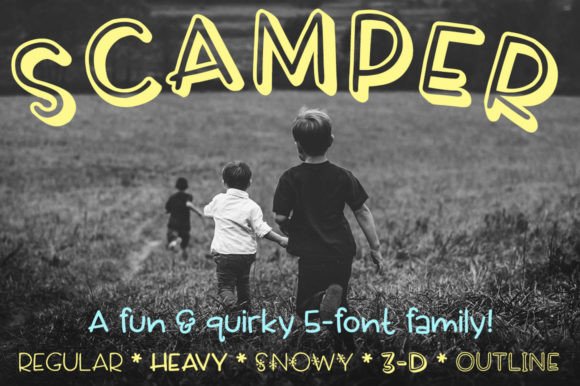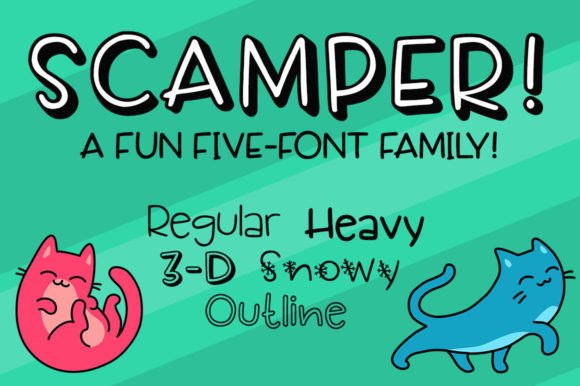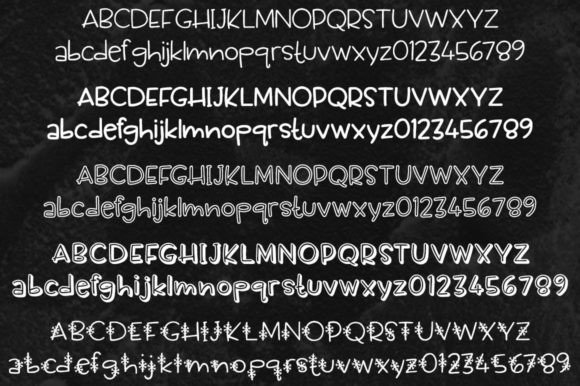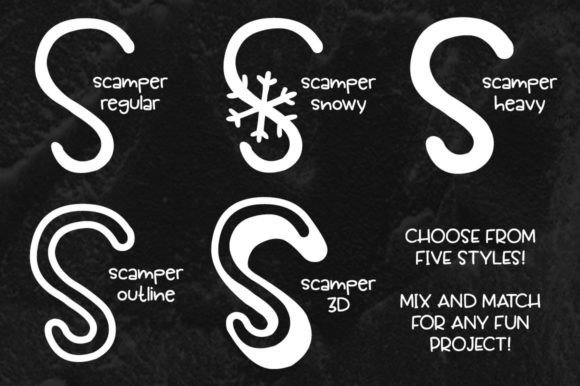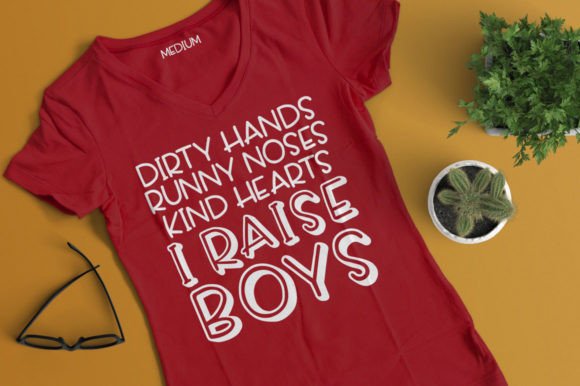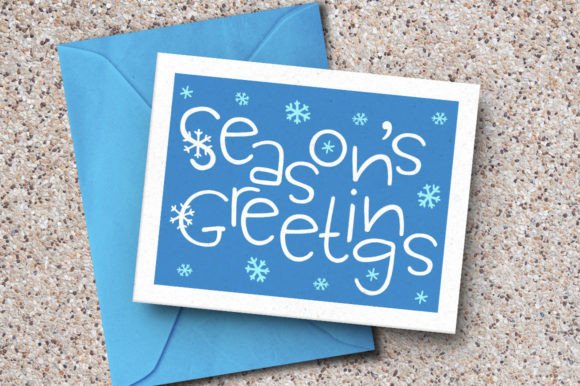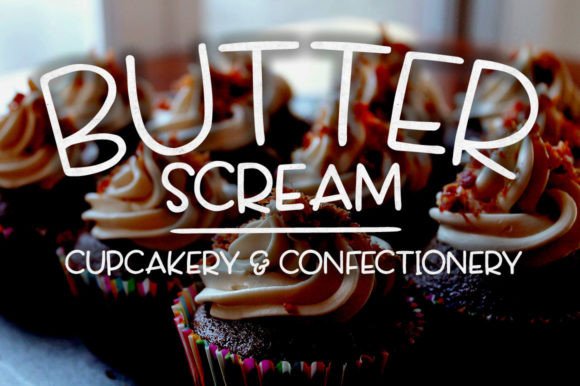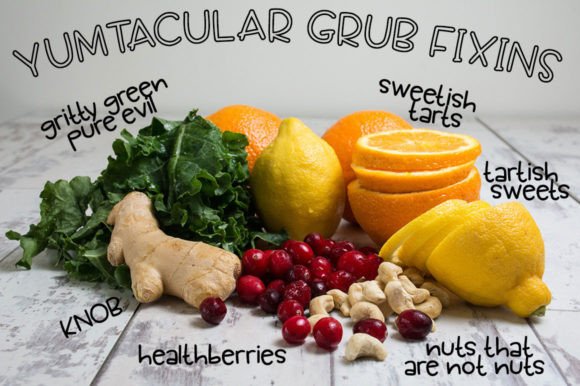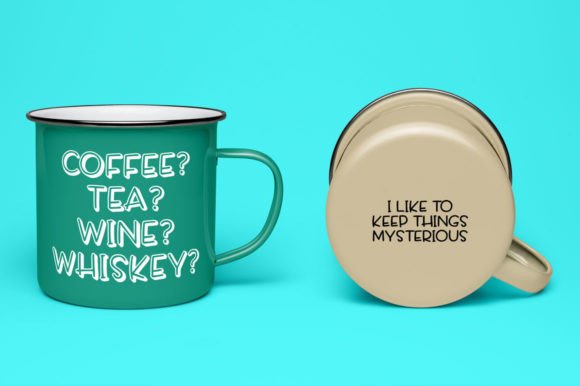
Scamper Font
Introducing Scamper, a font that began its journey as a winter-inspired typeface, adorned with intricate snowflakes within each letter. However, the love for the simpler, snow-less versions led to the creation of five distinct styles—regular, heavy, outline, 3D, and the original snowy variation. Each style is meticulously crafted, featuring edited, cleaned-up letters with over 300 accented characters in each version, ensuring comprehensive language support. The letters have a delightful hand-crafted wobble, adding a touch of whimsy while maintaining a smooth appearance.
Scamper, in its various styles, transcends its seasonal origins and transforms into a versatile handwritten font suitable for any time of the year. The download includes the following styles:
– **Scamper Regular:** A clean and straightforward version.
– **Scamper Snowy:** The original winter-inspired version, featuring snowflakes within the letters.
– **Scamper Heavy:** A bolder and more substantial rendition for added emphasis.
– **Scamper Outline:** A stylish outline version, offering a distinctive appearance.
– **Scamper 3D:** A three-dimensional version, adding depth and dimension to your text.